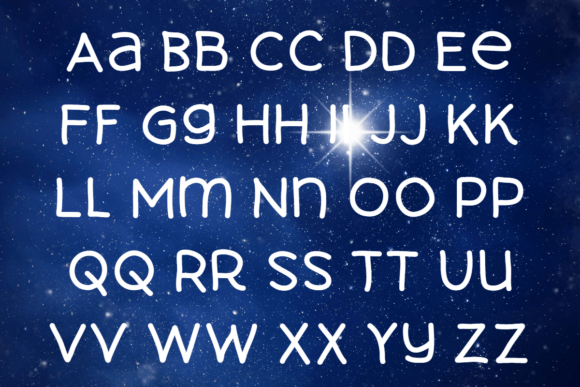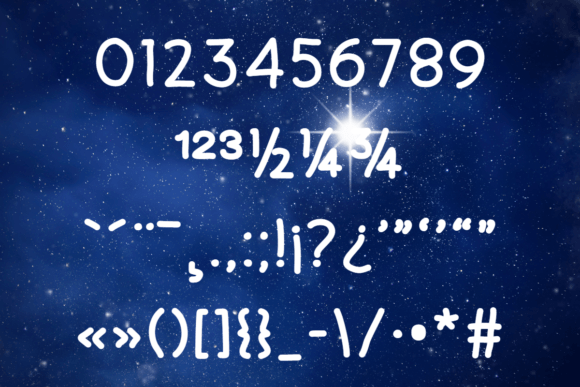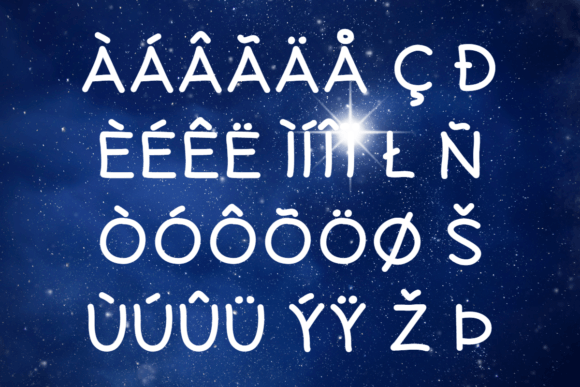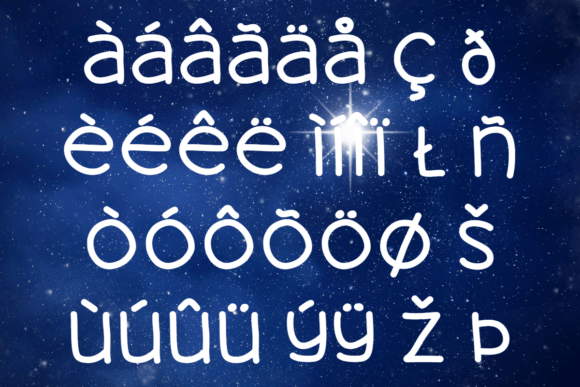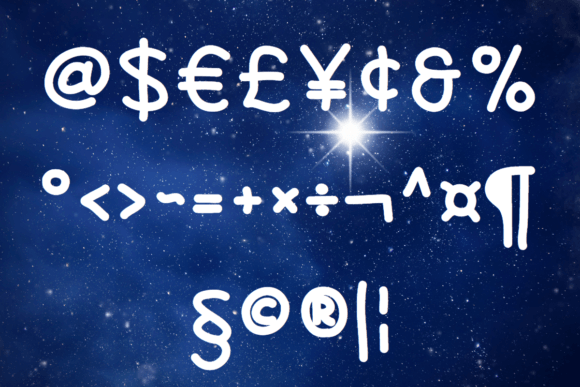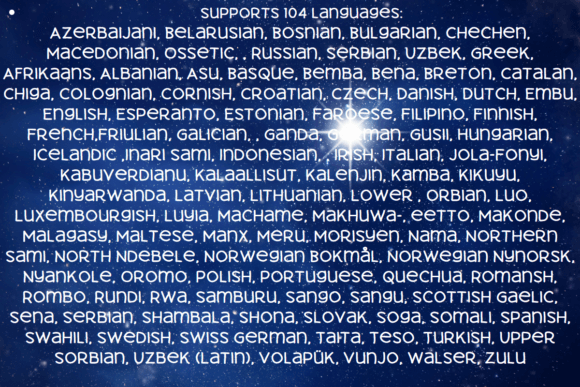
Introduction to Mystic Polaris Font
Remember that moment when you’re brainstorming ideas for your latest creative project, and you stumble upon the perfect font to elevate your design? For designers, finding the right font can be a game-changer. It’s the difference between a good design and a great one. And, for those who have been searching for that perfect sans serif font, we’re excited to introduce you to the Mystic Polaris Font.
This elegant and modern sans serif font is a design resource that’s sure to impress. With its minimalist and clean vibe, it’s perfect for a wide range of creative projects, from book covers and magazines to social media posts and invitations. Plus, with its transparent background and high quality design, you can be sure that your project will stand out from the crowd.
Key Features of Mystic Polaris Font
- Unique blend of mystical and celestial elements, perfect for creative projects requiring a touch of magic.
- High-quality font with a transparent background, ideal for use on digital designs, websites, and graphic art.
- Perfect for use in creative projects, such as fantasy novels, sci-fi art, and mystical branding.
- Unique characteristics include intricate details, elegant curves, and a sense of mysticism, making it a standout design element.
Honest Review: Mystic Polaris Font
As a designer, I’ve had the chance to work with numerous fonts, but the Mystic Polaris Font has truly stood out to me. One of the things that caught my attention was its unique aesthetic, which is perfect for adding a touch of mysticism to any creative project.
One of the things that works well with the Mystic Polaris Font is its versatility. ✨ I’ve used it for a wide range of projects, from branding to editorial design, and it has always delivered. The font is also highly legible, even on a transparent background, which is a must for any designer working with complex compositions.
- High quality and detailed design
- Unique aesthetic that sets it apart from other fonts
One of the limitations of the Mystic Polaris Font is its limited character set. ⚠️ This can make it difficult to use for longer blocks of text, but for titles and headings, it’s perfect. Additionally, the font may not be compatible with all operating systems, which is worth considering before making a final decision.
Overall, I’m thoroughly impressed with the Mystic Polaris Font. It’s a great addition to any designer’s toolkit, and I would highly recommend it for any creative project that requires a touch of mysticism and elegance.
Mystic Polaris Font
The Mystic Polaris Font is a high-quality design resource that can be used in various creative projects. It features a unique, otherworldly style that can add an extra layer of depth to your designs.
Tips for Getting the Most Out of the Mystic Polaris Font
To get the most out of the Mystic Polaris Font, consider the following tips:
- Use the font with a transparent background to create a sense of depth and dimension.
- Experiment with different font sizes and styles to create a unique look.
- Pair the font with other design elements, such as graphics and images, to create a cohesive design.
The Mystic Polaris Font is commonly used in:
- Graphic design projects, such as posters and flyers.
- Website design and development.
- Print design, such as business cards and brochures.
Alternatives to Mystic Polaris Font
Aurora Sans
Aurora Sans is a high-quality, modern sans-serif font perfect for creative projects that require a clean and elegant design. It’s ideal for use in logos, brochures, and websites that need a touch of sophistication.
Compared to Mystic Polaris Font, Aurora Sans has a more minimalist approach, making it a great choice for designs that require a transparent background or a subtle, high-contrast design.
Galactic Grotesque
Galactic Grotesque is a futuristic sans-serif font that’s perfect for sci-fi themed designs or projects that need a sense of otherworldliness. It’s a great choice for use in video games, movies, or any design that requires a high level of creativity.